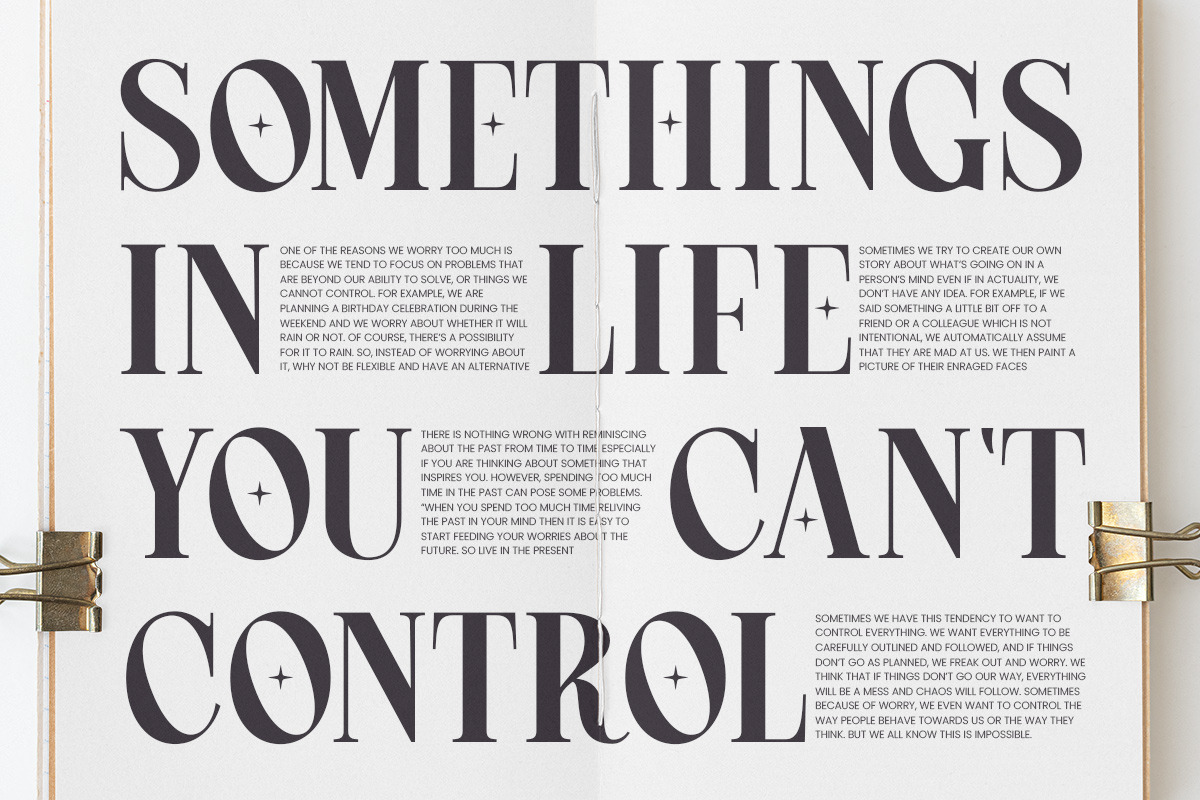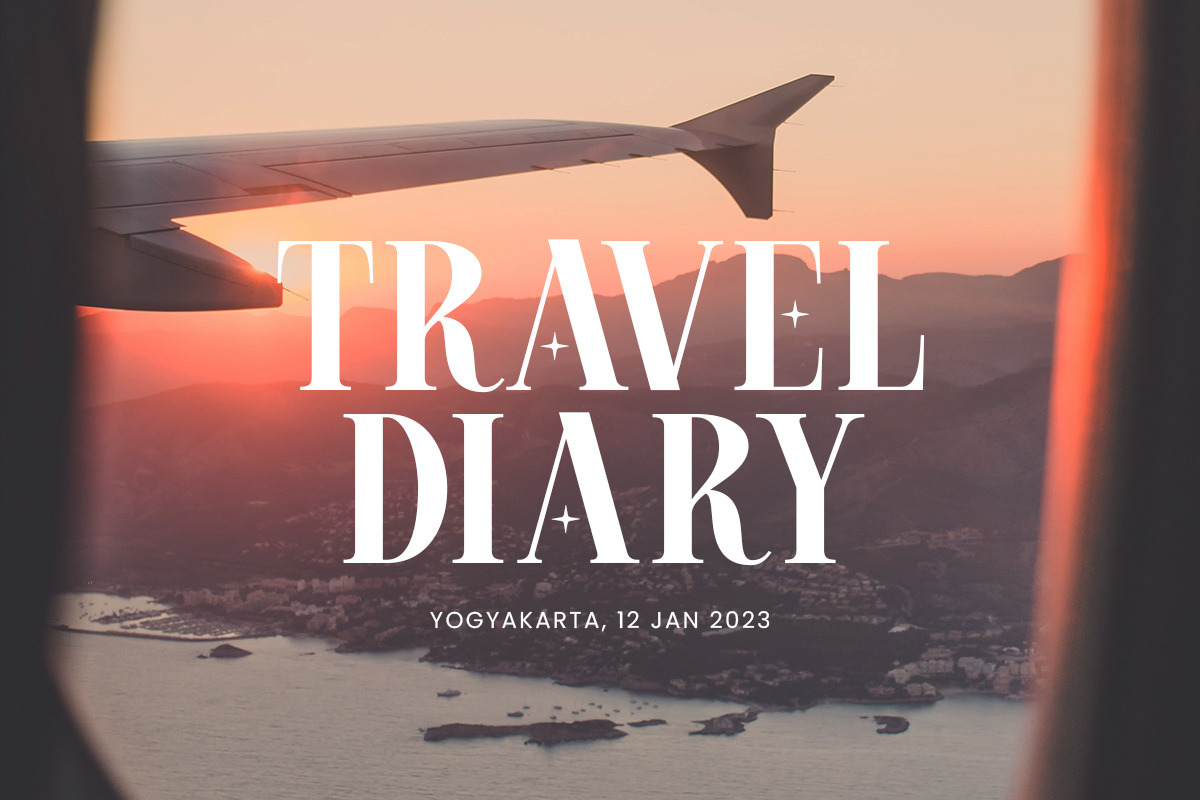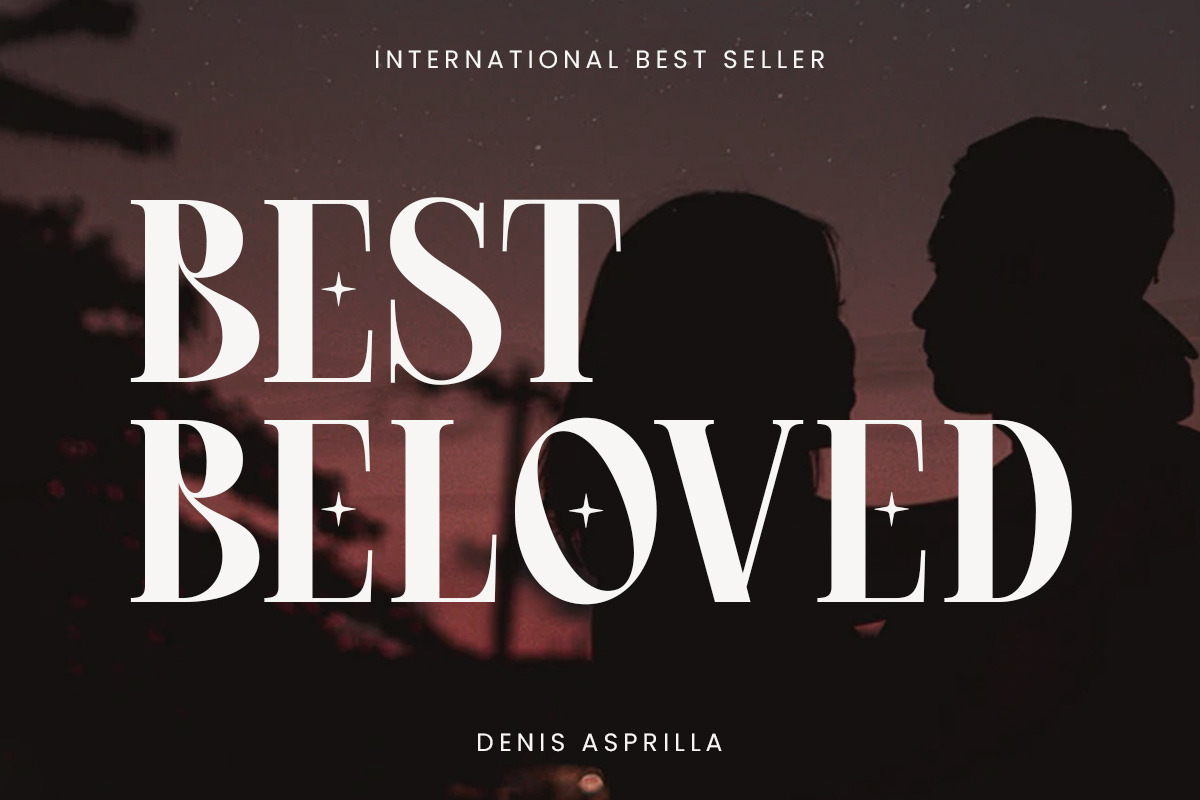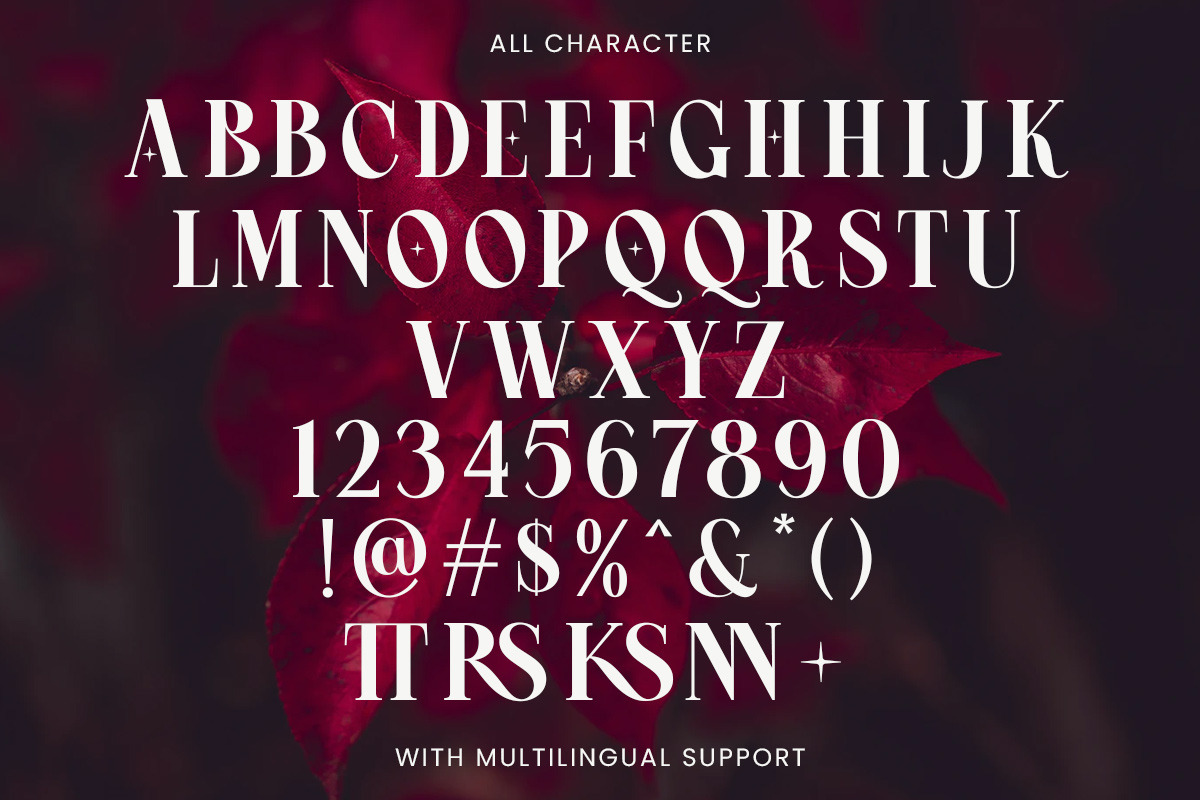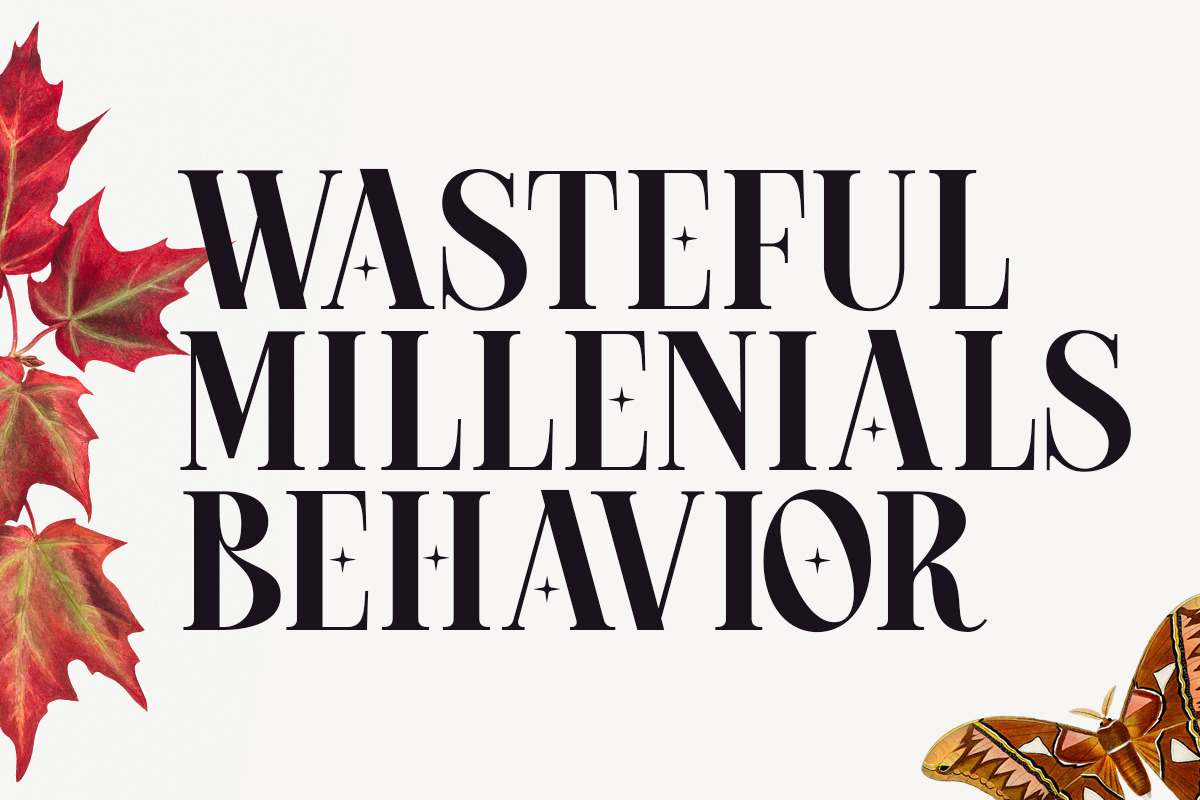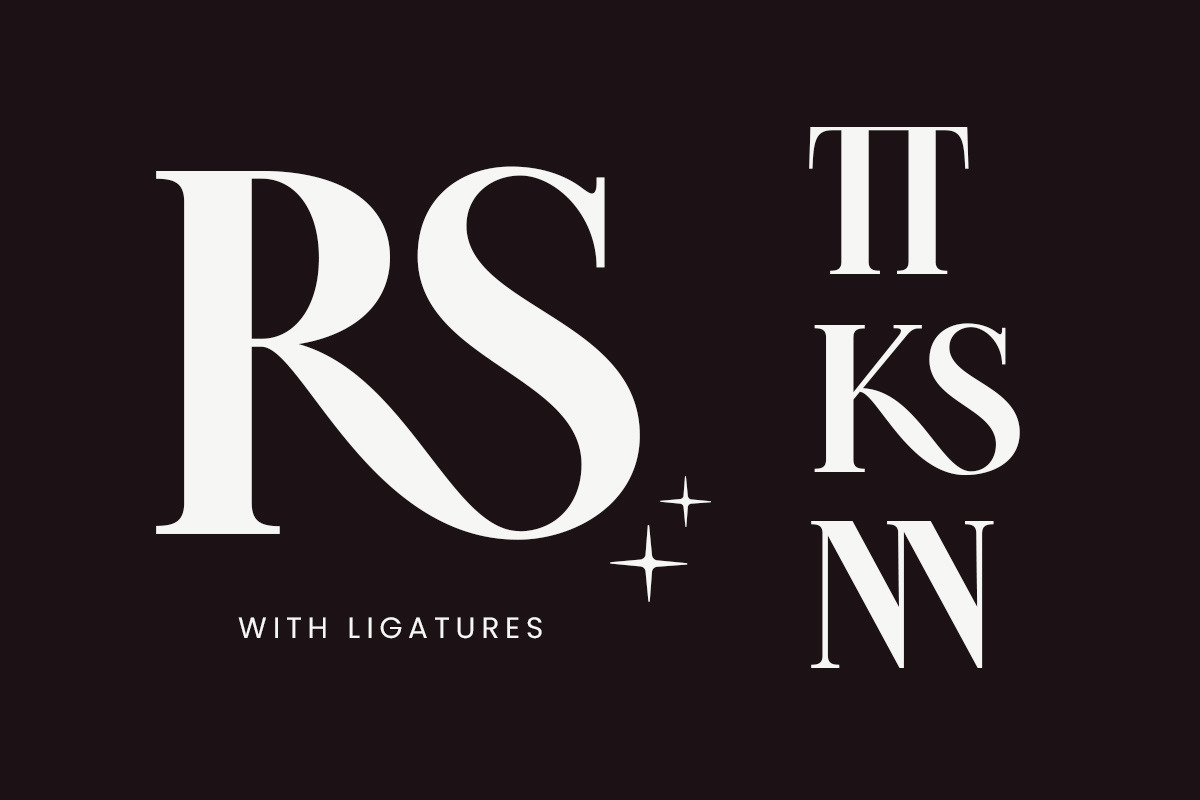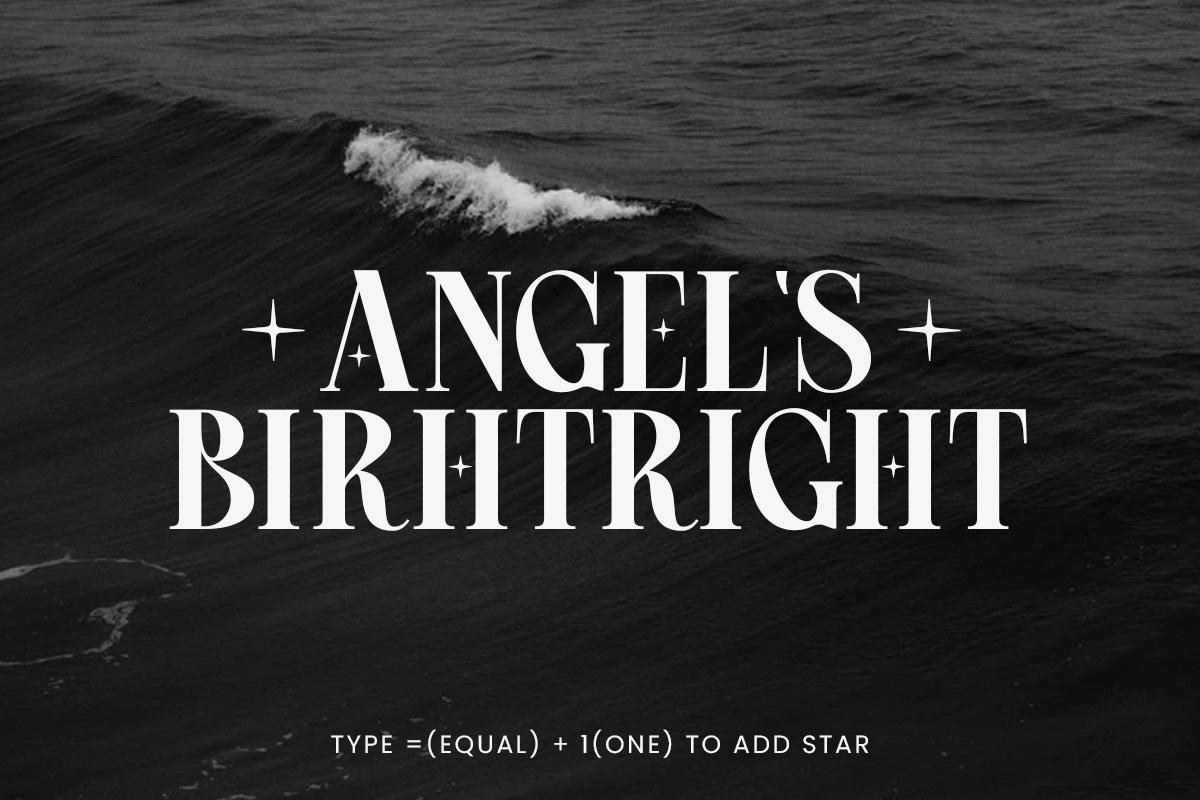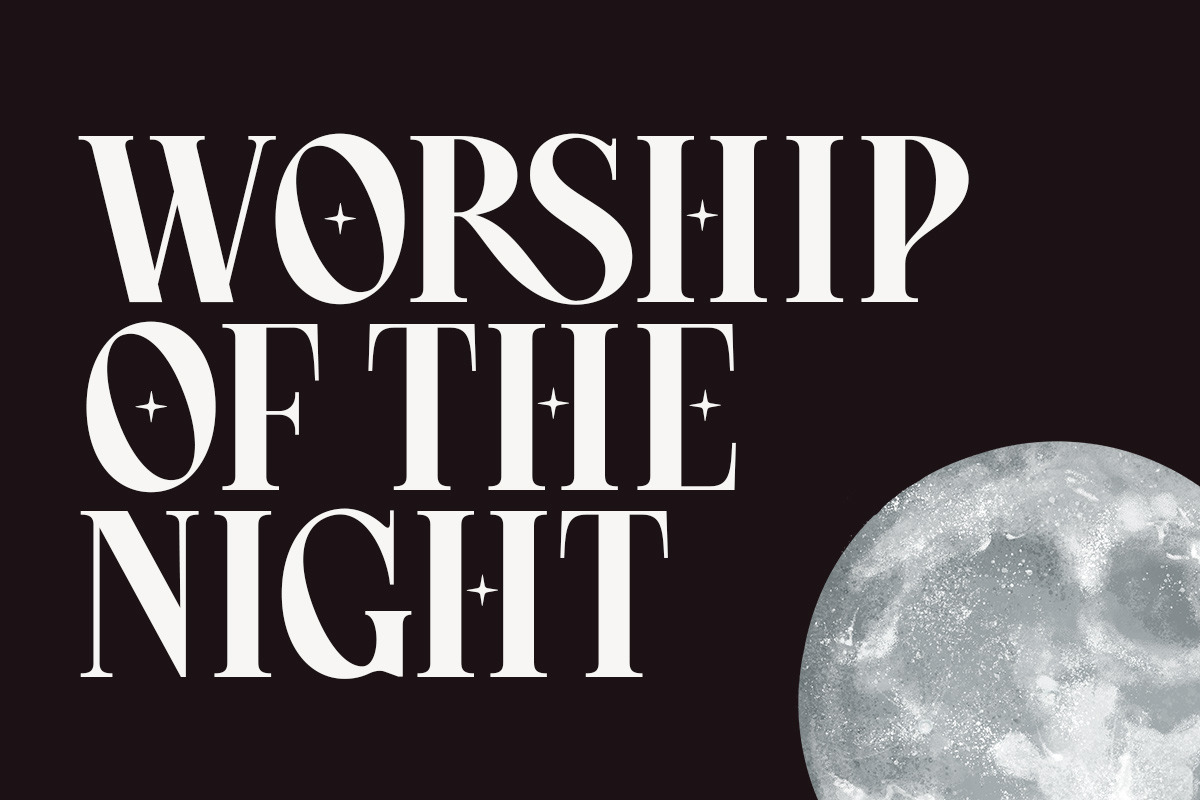
Crimson Queen - Modern Serif
Introducing, Crimson Queen! Crimson Queen is a modern serif font with condesed style and clean look. this font is perfect for any of your project such as headline, logo, book, magazine, movie, etc. This font also comes with multilingual support.